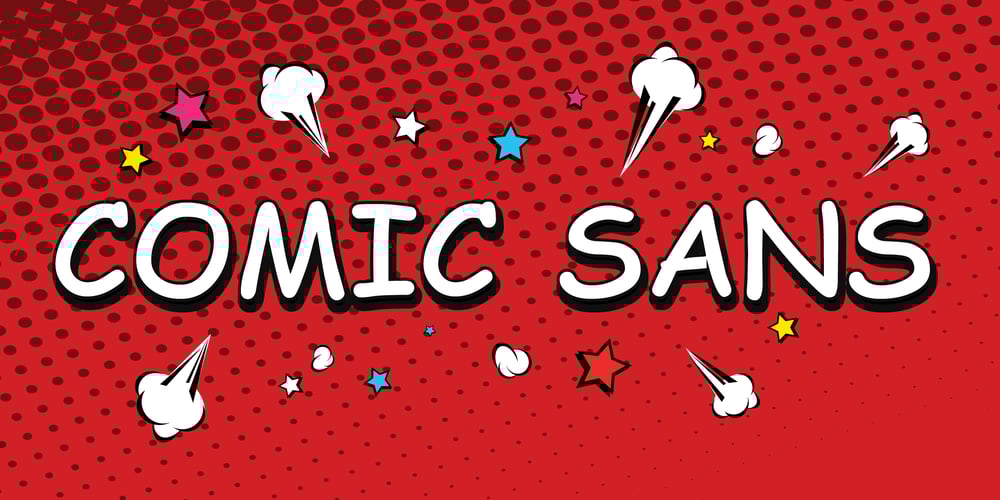
Comic Sans
Comic Sans font
Comic Sans Font Family was designed by Vincent Connare and published by Microsoft Corporation. Comic Sans contains 4 styles and family package options. The Comic Sans® typeface, one of Microsoft’s most popular designs, has received a makeover courtesy of Monotype Imaging. The company has introduced the four-font Comic Sans Pro family of typefaces. Featuring elements such as speech bubbles and cartoon dingbats, Comic Sans Pro extends the versatility of the original Comic Sans, designed by Vincent Connare for Microsoft in 1994. Hats off to Monotype Imaging for enlivening Comic Sans and getting it back to its roots as a comic book lettering face. Now everyone can write with more panache – and look even more like a pro using swashes, small caps and other typographic embellishments,” said Connare.”Every day, millions of people rely on Comic Sans for countless applications ranging from scrapbooking to school projects,” said Allan Haley, director of words and letters at Monotype Imaging. “Comic Sans is also a favorite in professional environments, used in medical information, instructions, ambulance signage, college exams, corporate mission statements and executive reprimands – even public letters from sports team owners to their fans. Breaking up with your spouse? Why not write a letter in Comic Sans Pro, embellished with a typographic whack!, pow! or bam! Comic Sans is everywhere, and now it’s even better.”The Comic Sans Pro family includes regular and bold fonts, in addition to two new italic and bold italic fonts drawn by Monotype Imaging’s Terrance Weinzierl. “Our aim is to put the ‘fun’ back in ‘functional.’ We can’t wait to see Comic Sans Pro used in everything from second wedding announcements to warning labels,” said Weinzierl. “Long live Comic Sans!”Comic Sans Pro contains a versatile range of typographic features including swashes, small caps, ornaments, old style figures and stylistic alternates – all supported by the OpenType® font format. OpenType-savvy applications, such as Adobe® Creative Suite®, QuarkXPress® or Mellel™ software are required to access these features. Comic Sans Pro can also be used in new versions of Microsoft® Office including Microsoft Word 2010 and Microsoft Publisher 2010. In addition, Comic Sans Pro includes a set of ornaments and symbols, including speech bubbles, onomatopoeia and dingbats, pre-sized to work well as bullets.”